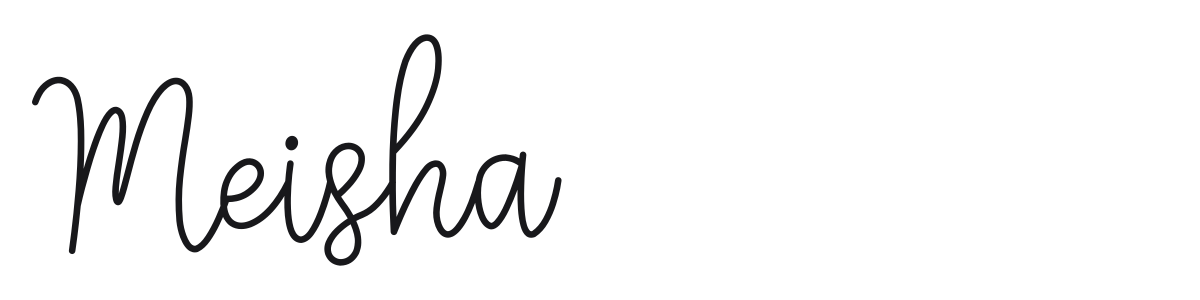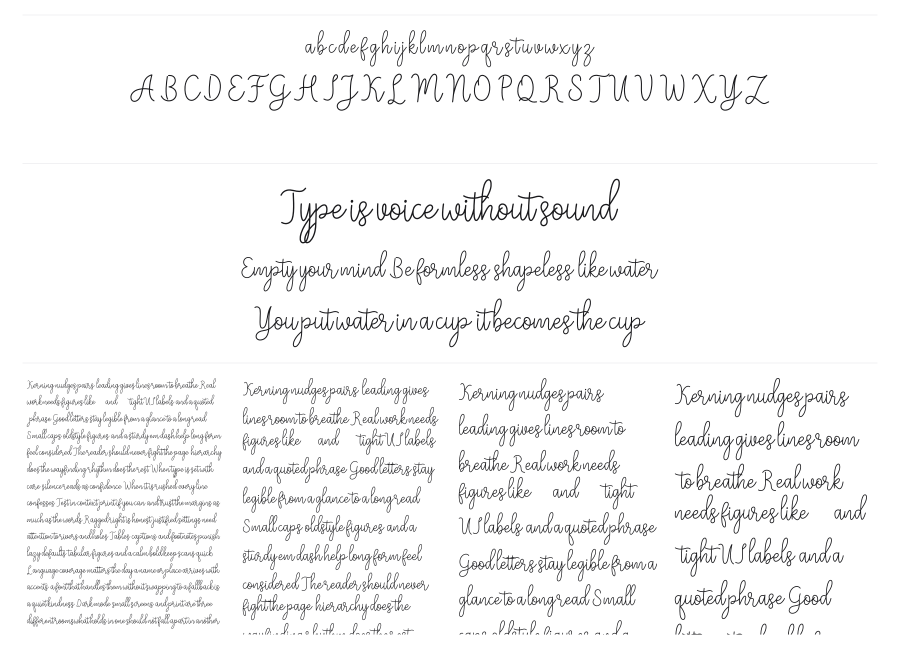
Meisha
Meisha is a lightweight monoline script from Fanastudio with the flowing, unhurried quality of a real signature. The thin strokes stay consistent throughout, giving it a feminine elegance that never feels fussy or overdone. It's a natural pick for branding, invitations, and personal logos where you want something that reads as graceful and authentic rather than heavily designed.